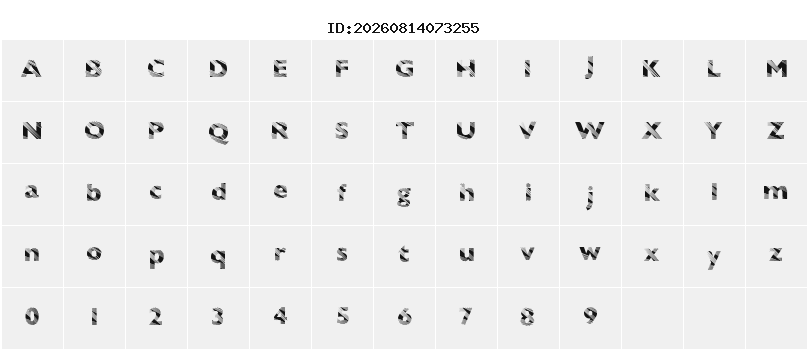
SunriseDisco Preview
• Font Name: SunriseDisco
• Full Font Name: SunriseDisco
• Version: Version 1.00 September 28, 2013, initial release
• Designer: Xerographer Fonts Max Infeld
• Manufacturer: Xerographer Fonts
• Description: Made at Xerographer Studios in Chico,CA
About SunriseDisco.ttf
SunriseDisco.ttf is a modern, elegant sans-serif font designed for ultimate readability and visual harmony. Perfect for branding, headlines, web design, and print materials.